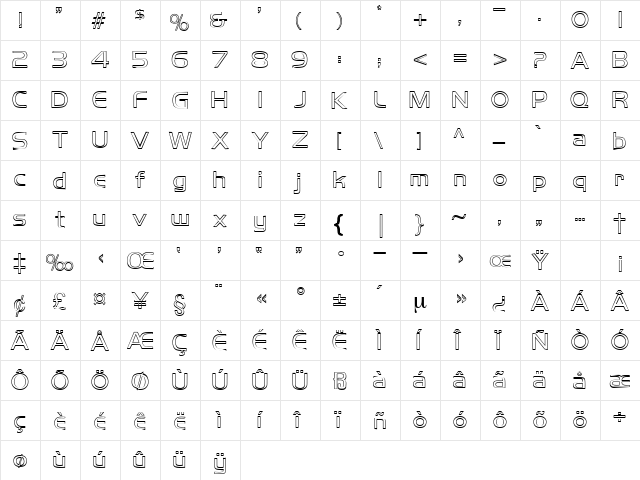
LarissaOpen Regular
Design Context for LarissaOpen Typeface
LarissaOpen is a composed and adaptable typeface that performs quietly and consistently across a wide range of design contexts.